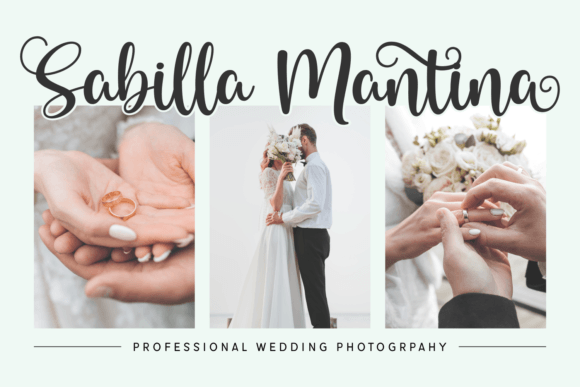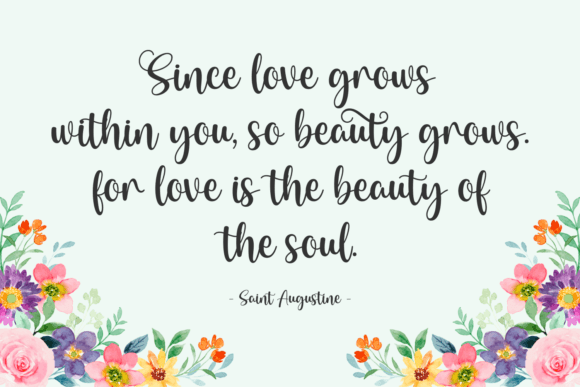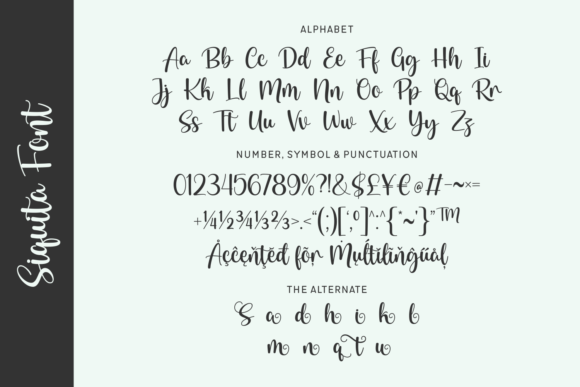
Introduction to Siquita Font
Have you ever scrolled through your social media feed and been stopped in your tracks by a beautifully designed post that immediately resonated with you? For many designers, this is the ultimate creative high – the moment when our hard work and attention to detail come together to create something truly special. And for those of us who specialize in typography, the right font can make all the difference.
One such font that’s been making waves in the design community is the Siquita Font – a unique script typeface that exudes approachability and friendliness. With its simplicity and easy-going style, it’s no wonder why designers are flocking to this high-quality design resource for their creative projects. From lifestyle blogs to casual business branding, the Siquita Font is the perfect choice for anyone looking to convey clarity, honesty, and warmth in their work.
Key Features of Siquita Font
- High-quality design for creative projects with a unique, elegant style
- Transparent background, allowing for easy customization and versatility
- Supports a wide range of languages and characters, making it suitable for international design projects
- Perfect for use in various design projects, from logos and branding to web design and print materials
Honest Review: Siquita Font
As a designer, I’m always on the lookout for high quality design resources to elevate my creative projects. Recently, I came across the Siquita Font, and I’m excited to share my honest review.
- ✨ Unique and modern design style that’s perfect for contemporary projects.
- ✨ Excellent readability, even on small text sizes.
- ⚠️ Limited character set, which may not be suitable for projects that require extensive typing.
Overall, I’m impressed with the Siquita Font’s potential to add a touch of modernity to my design projects. While it may have some limitations, its unique design style and ease of use make it a valuable resource for any designer. If you’re looking for a high-quality, free download font to spice up your creative project, Siquita Font is definitely worth checking out.
Siquita Font
Tips for Getting the Most Out of Siquita Font